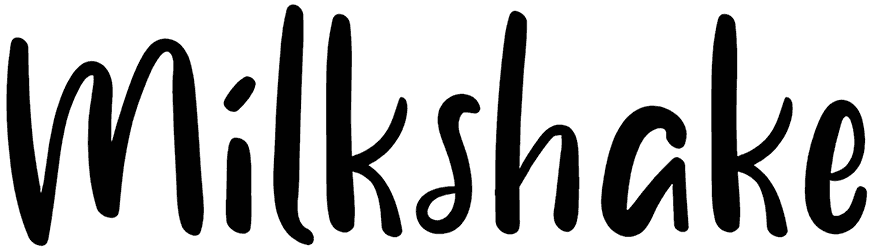
Milkshake Font
Milkshake, a cute handwritten font, with a natural style, would really make your film, hoodie, cartoon, clothing design, etc., stand out. You can add a sense of fun to your writing by using this script font.
Milkshake is a sweet and simple handwritten font. It can be used on various design ideas, such as crafting, digital designing, presentations or greeting cards making.